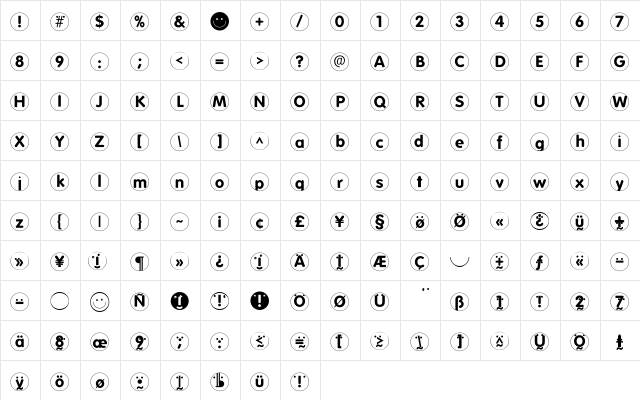
FolksCirclePositive Regular Font Preview
FolksCirclePositive Regular
Design Context for FolksCirclePositive Typeface
FolksCirclePositive offers clean, dependable letterforms without strong stylistic allegiance, making it a practical choice for designers who need flexibility.